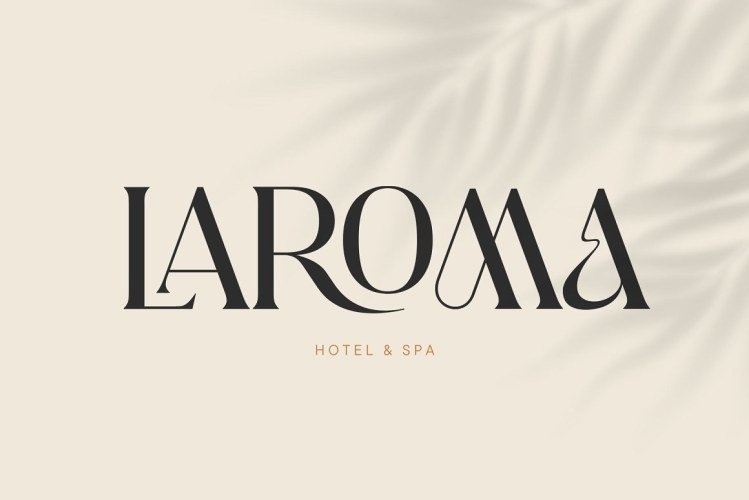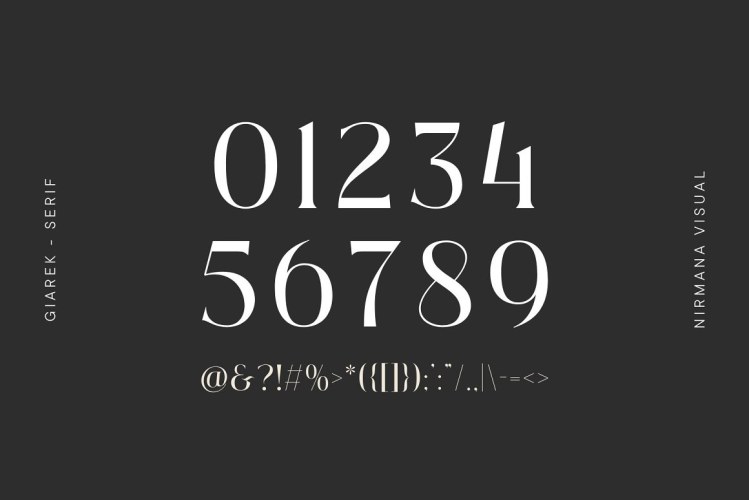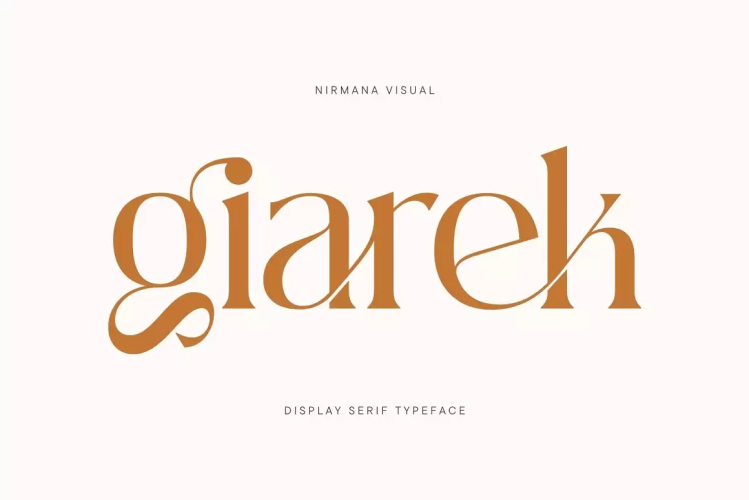
Giarek – Ligature Serif Font
Giarek offers beautiful typographic harmony for a diversity of design projects, including logos & branding, social media posts, advertisements & product designs. What yo…
Giarek offers beautiful typographic harmony for a diversity of design projects, including logos & branding, social media posts, advertisements & product designs.
Where Giarek – Ligature Serif Font works best
Giarek – Ligature Serif Font gives long-form text a classic, trustworthy rhythm — ideal for magazine spreads, annual reports and book interiors.
Pair Giarek – Ligature Serif Font with generous letter-spacing for wordmarks in fashion, hospitality, wine and jewellery branding.
What is Giarek – Ligature Serif Font good for?